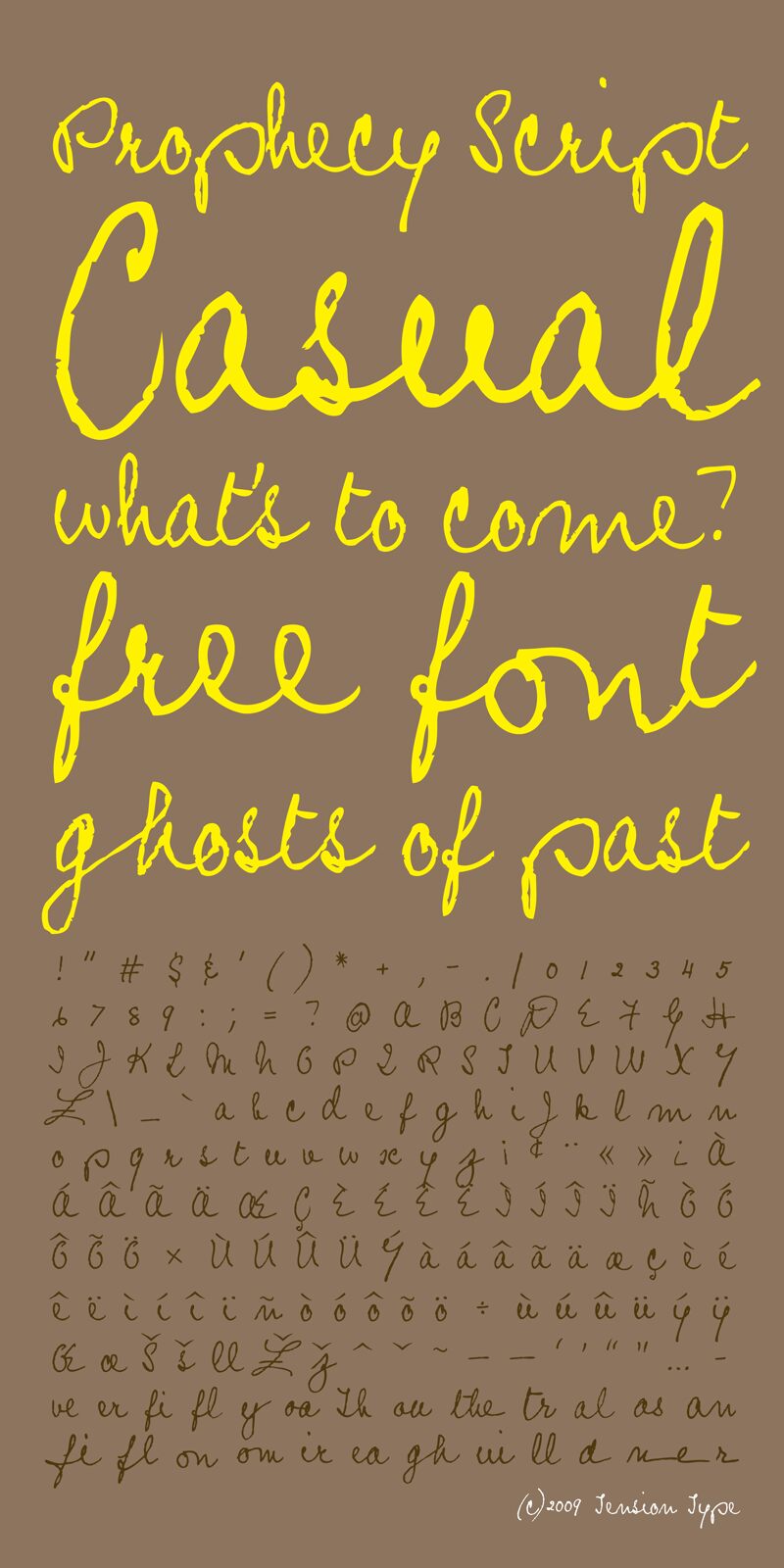
Prophecy Script by Michael Tension is a free handwritten brush script with the quick, unguarded motion of an ink signature. Its narrow strokes shift in weight and break into broad loops, sharp turns, and irregular joins. The line feels genuinely hand drawn.
Those sweeping forms can echo loose fashion sketches or gestural portrait illustration, making the font useful for boutique branding, album artwork, and invitation design. Its personal, slightly unruly handwriting is especially suited to independent labels, musicians, and event clients seeking something more intimate than polished calligraphy.